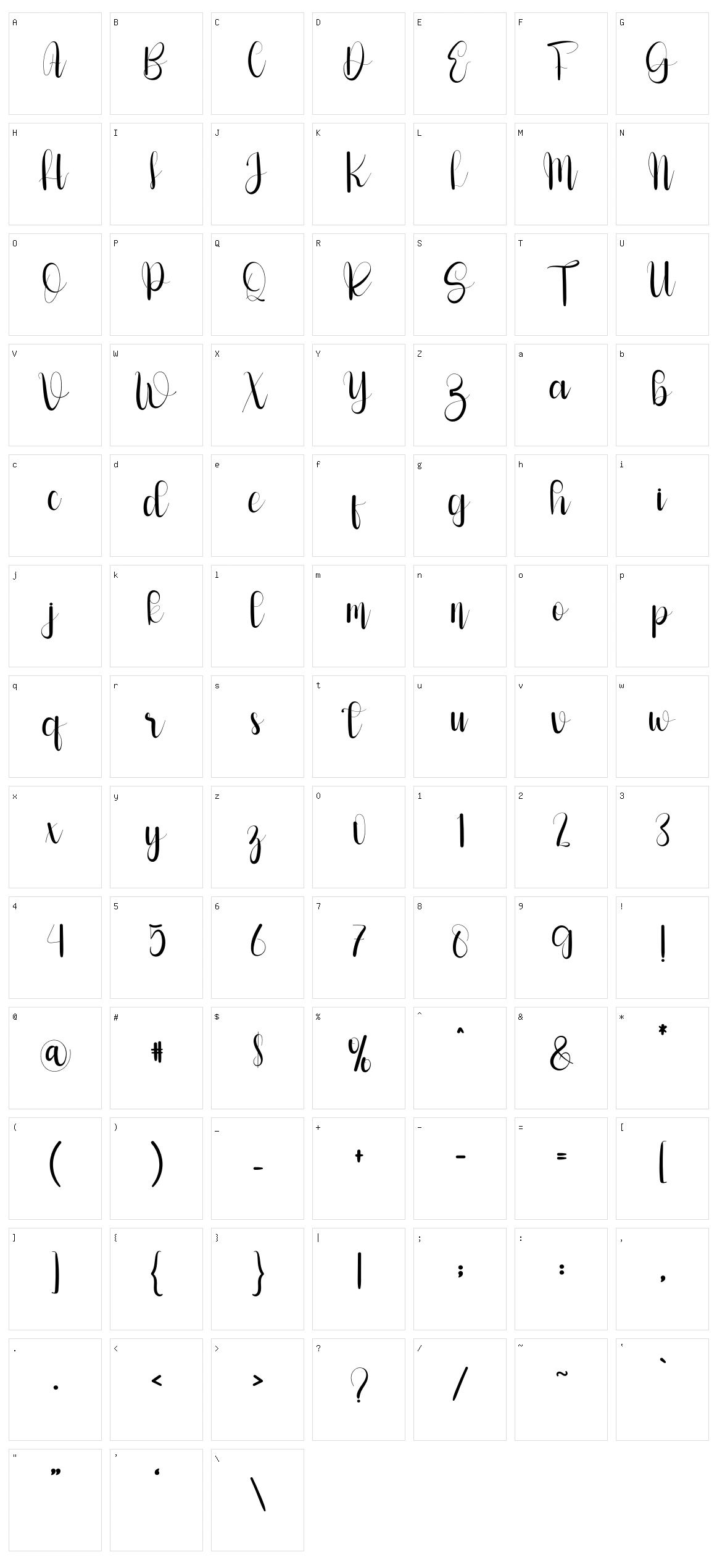
The free font Solaytia is carefully designed by Inermedia Studio, showcasing a thoughtful balance of creativity and usability and falls under the Script font style. When you download the ZIP file, it contains only 143.64 KB of font files, making it lightweight and quick to download. Please review the license details below to understand permitted usage and distribution rights. If license information is not available, we recommend using this font for personal projects only or contacting the author directly for commercial usage permissions.